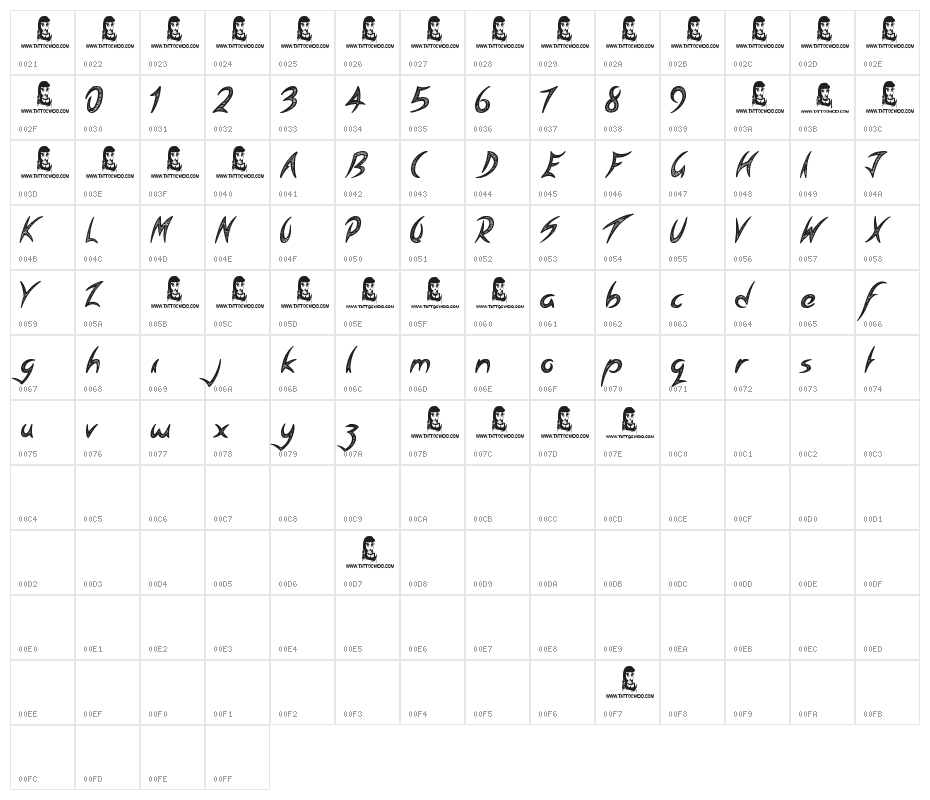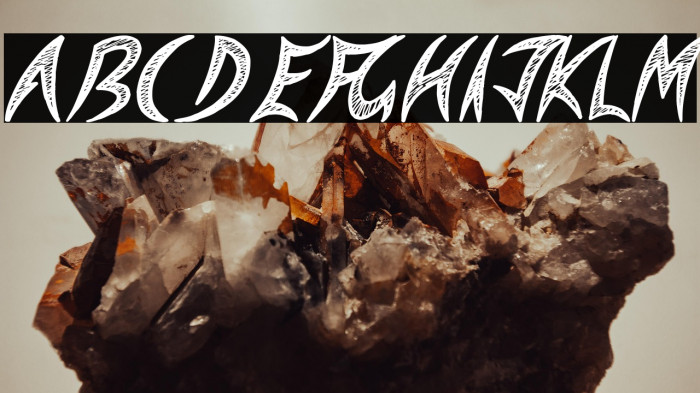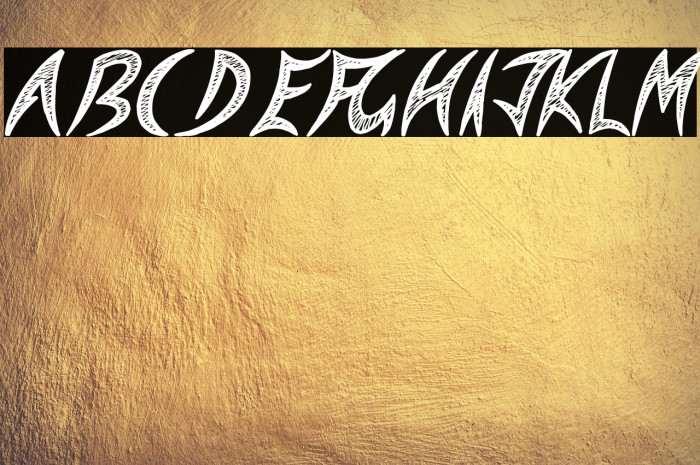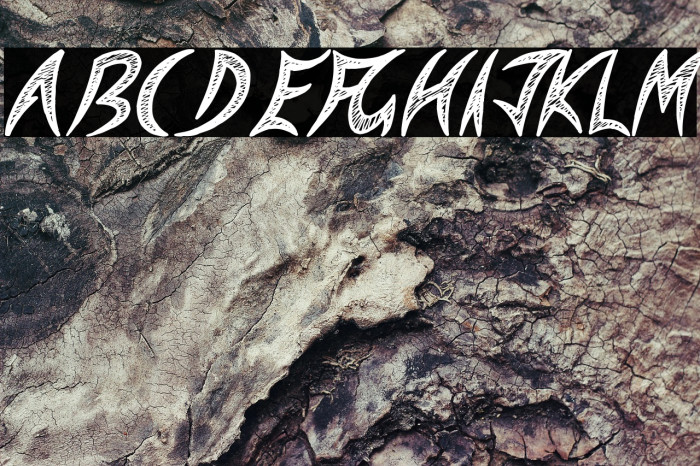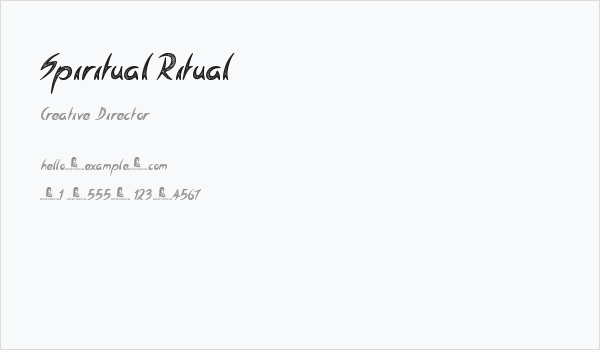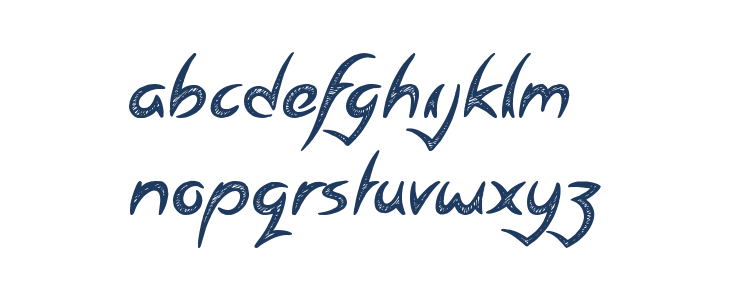
Spiritual Ritual Font
Spiritual Ritual Description
This font features a dynamic and energetic script style, characterized by its bold and sweeping strokes. Each letter is crafted with a sense of movement, giving it a lively and expressive appearance. The uppercase letters are particularly striking, with sharp angles and a slightly aggressive flair, while the lowercase letters maintain a more fluid and connected form. The numbers and special characters follow the same stylistic approach, ensuring consistency across all elements. The font's textured appearance adds depth and a handcrafted feel, making it suitable for projects that require a personal touch.
| Use Case | Logos, Headlines, Posters |
| Proposed Projects | Ideal for branding, posters, album covers, and any design needing a bold, expressive touch. |